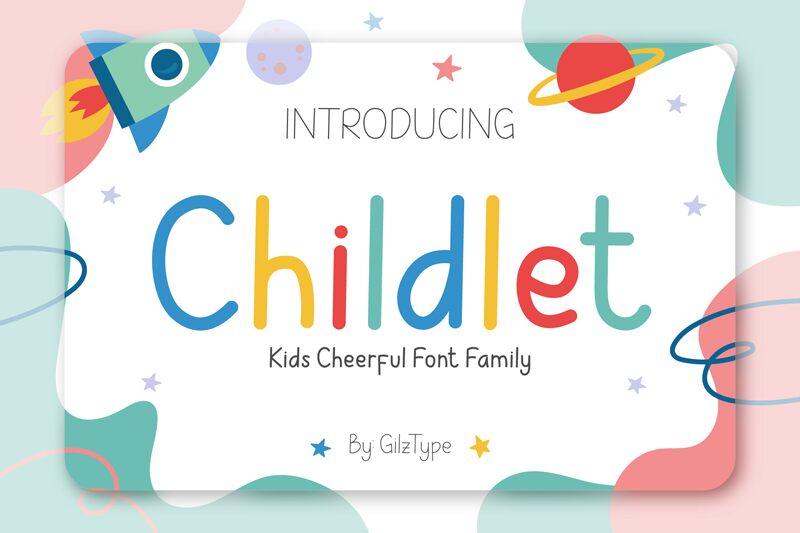
Introducing Childlet - Kids Cheerful Font Family
Childlet is a simple and colorful display font. Its friendly feel makes this font incredibly versatile, fitting a wide range of contexts. Add it to your creative ideas and notice how it makes them stand out!
Childlet Light